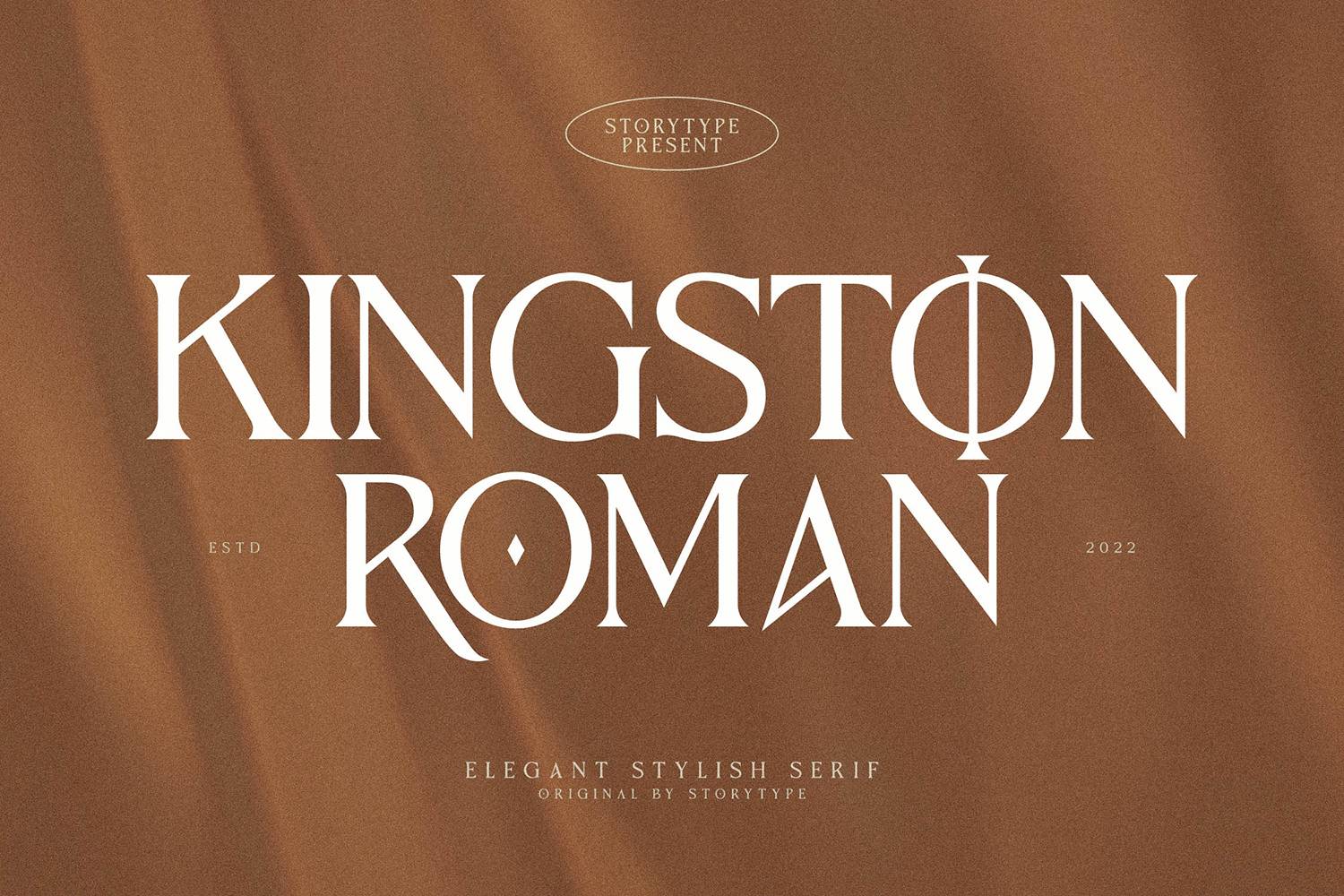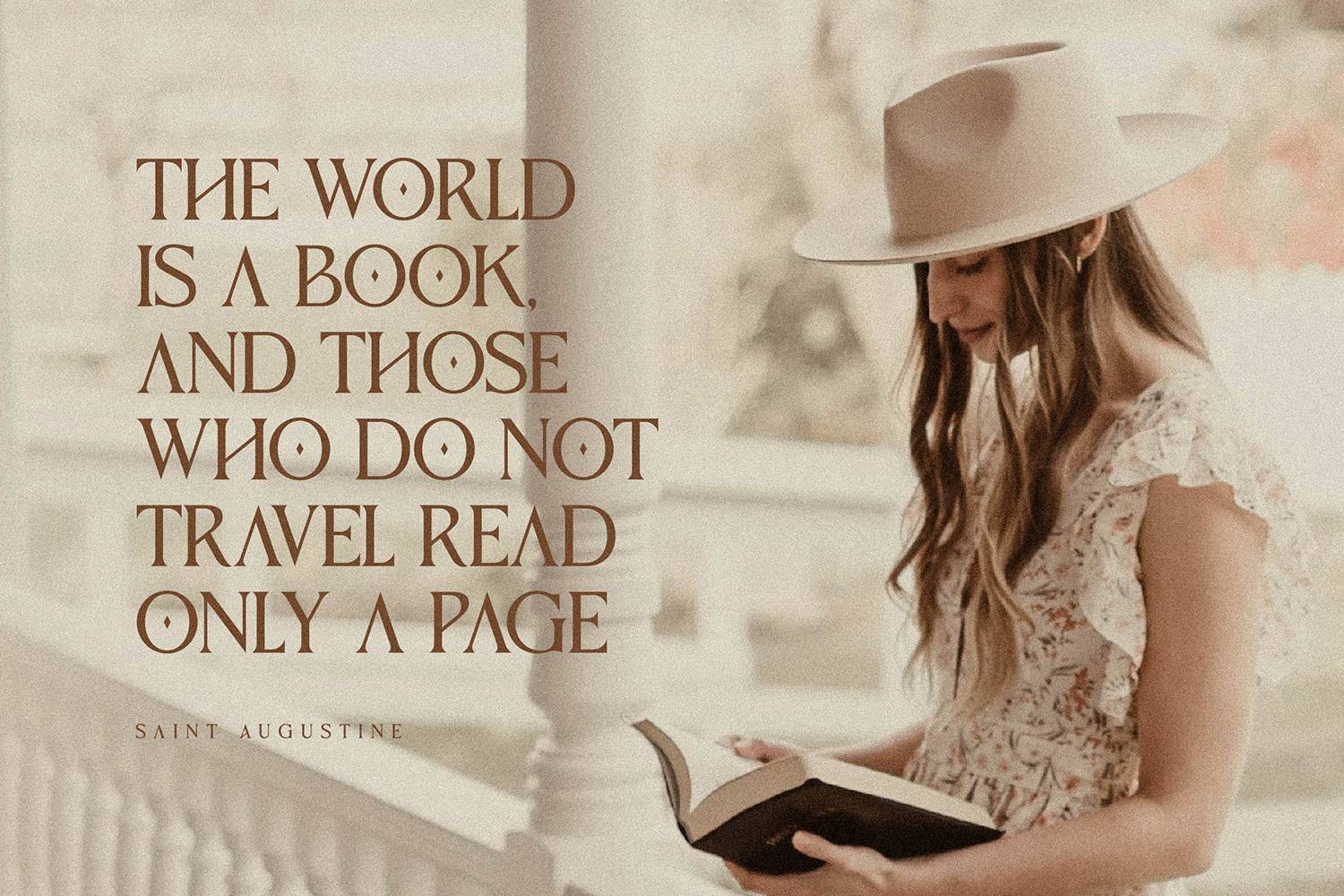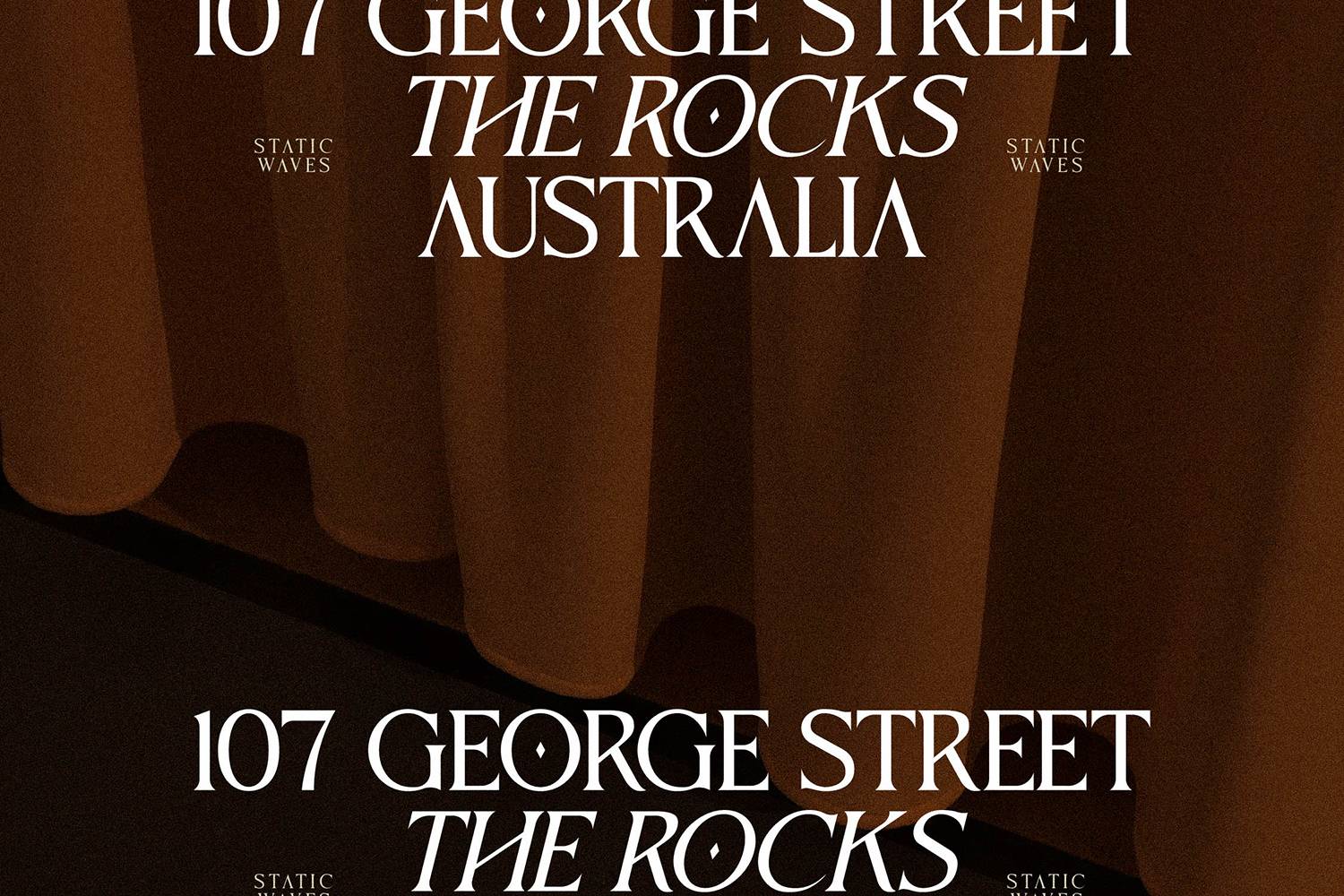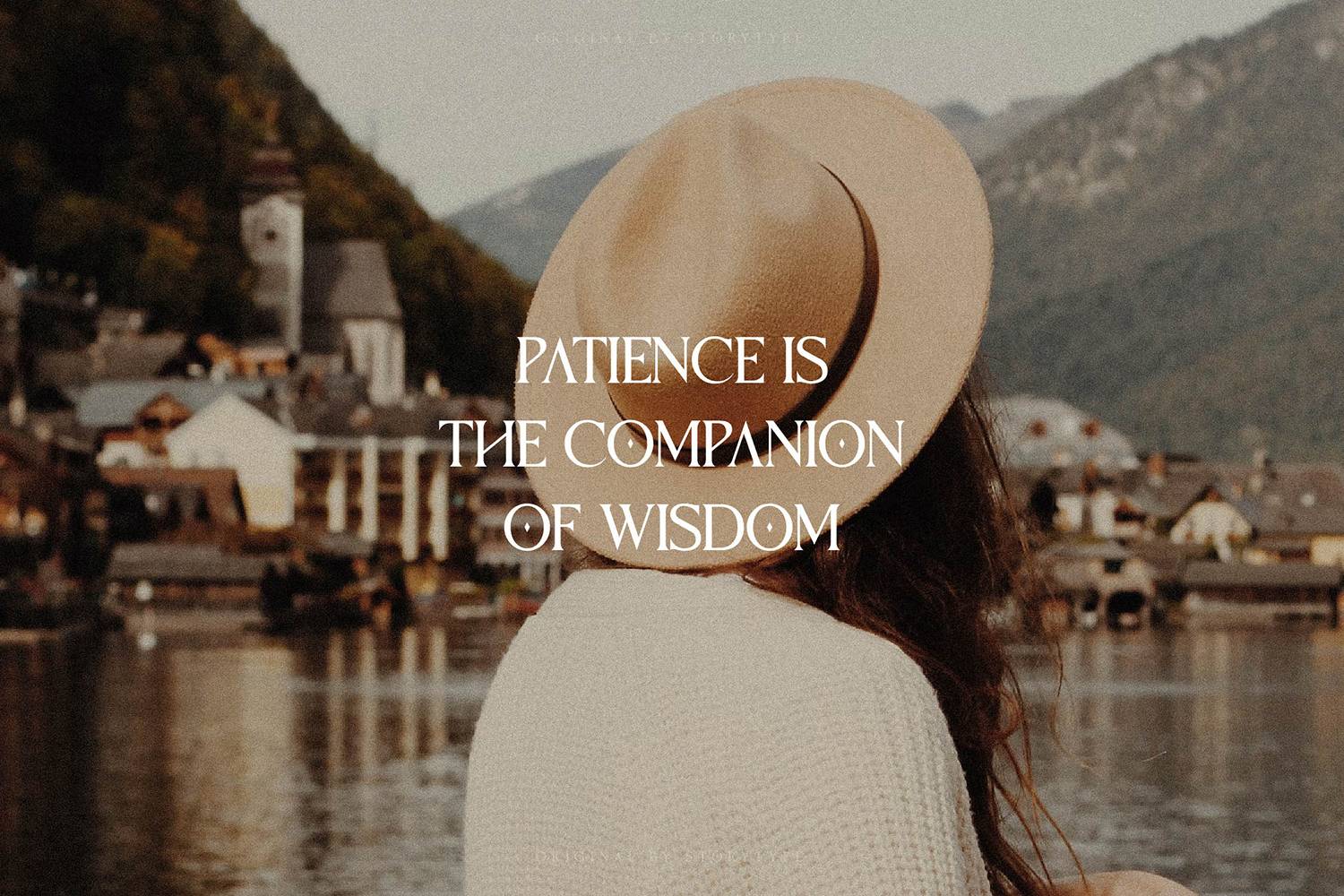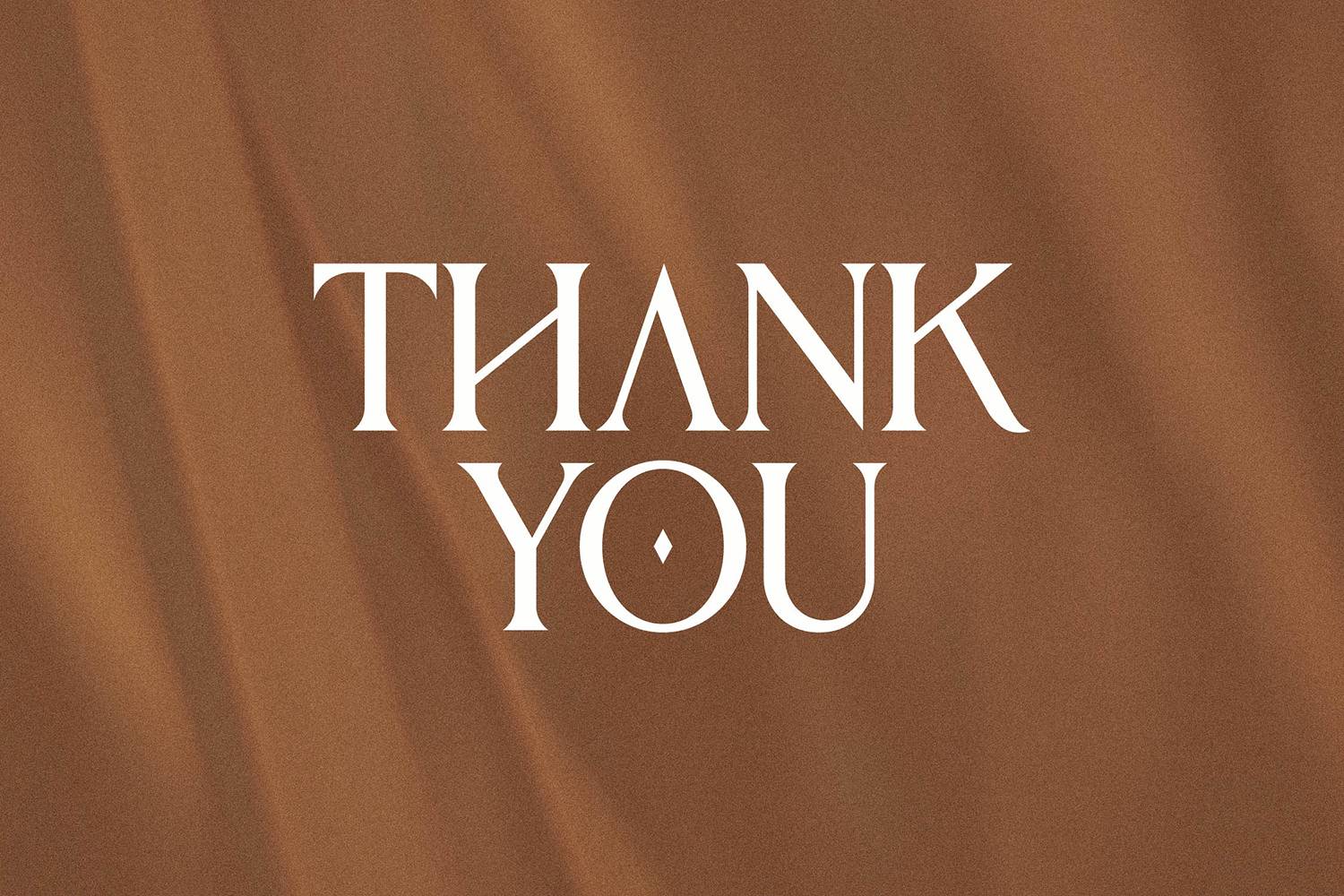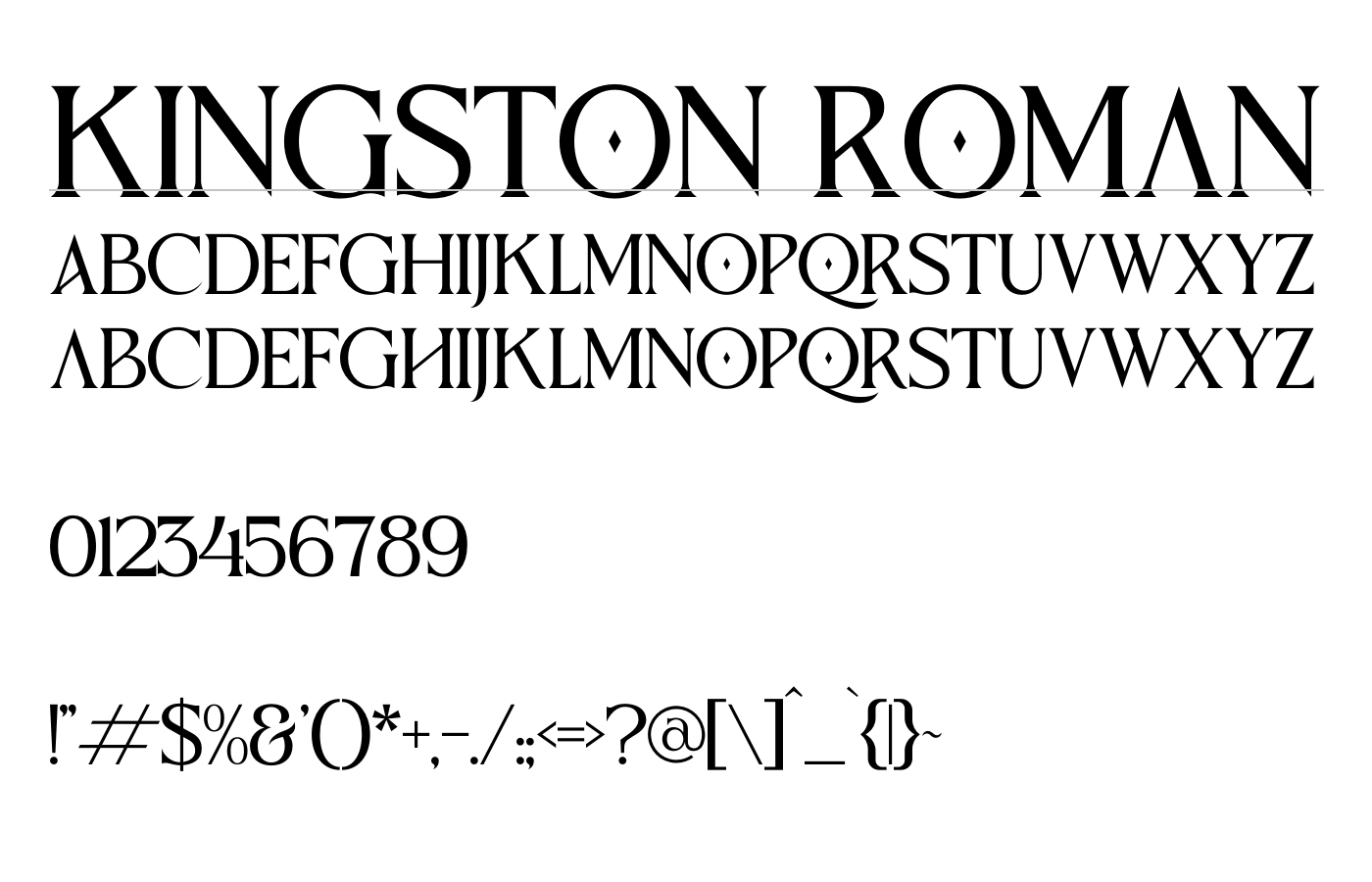
Kingston Roman is an elegant serif typeface with a distinctive blend of classical and artistic flair, featuring high contrast strokes and sharp, tapered serifs that give it a refined, sophisticated look. Its narrow, tall letterforms with unique decorative elements, such as diamond-shaped counters and stylized terminals, make it ideal for luxury branding, editorial headlines, and upscale design projects where a touch of timeless elegance is desired.
Kingston Roman Font
About Kingston Roman Font